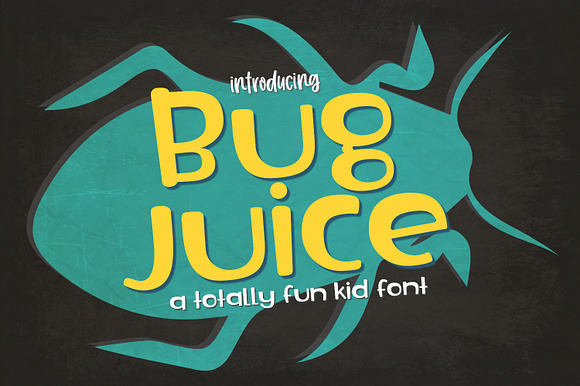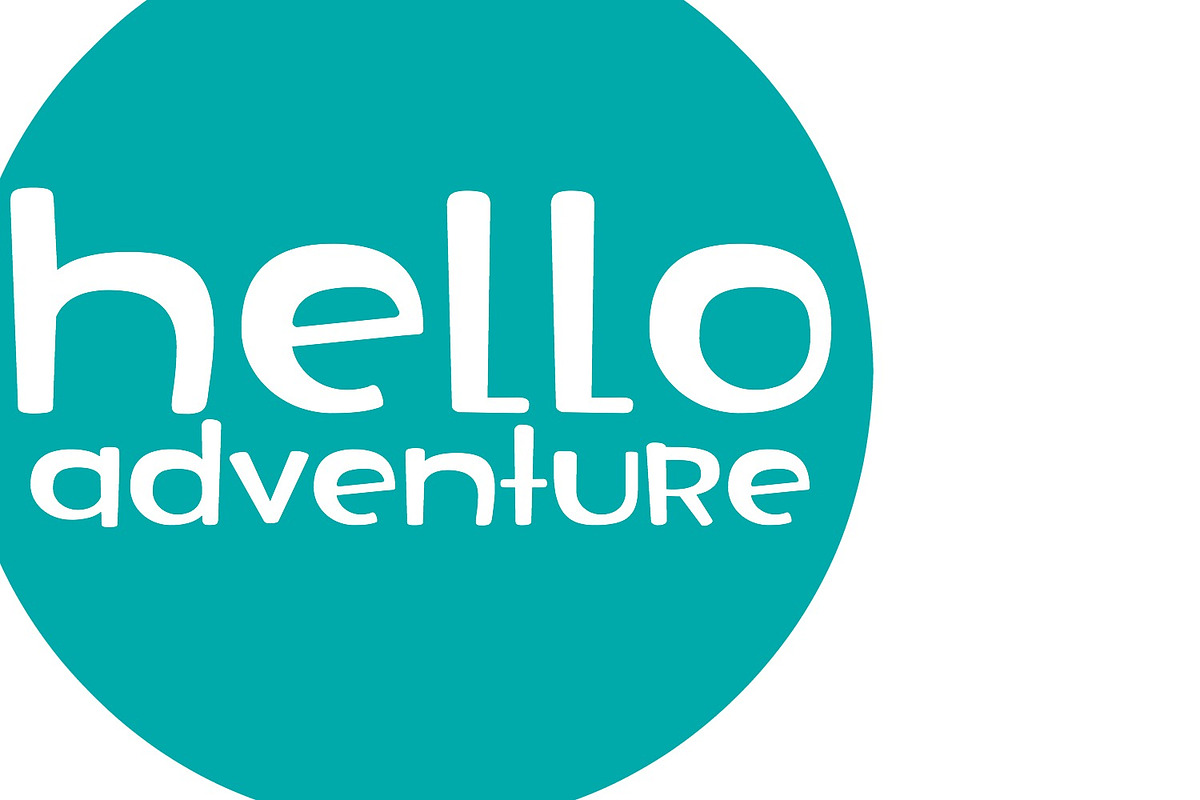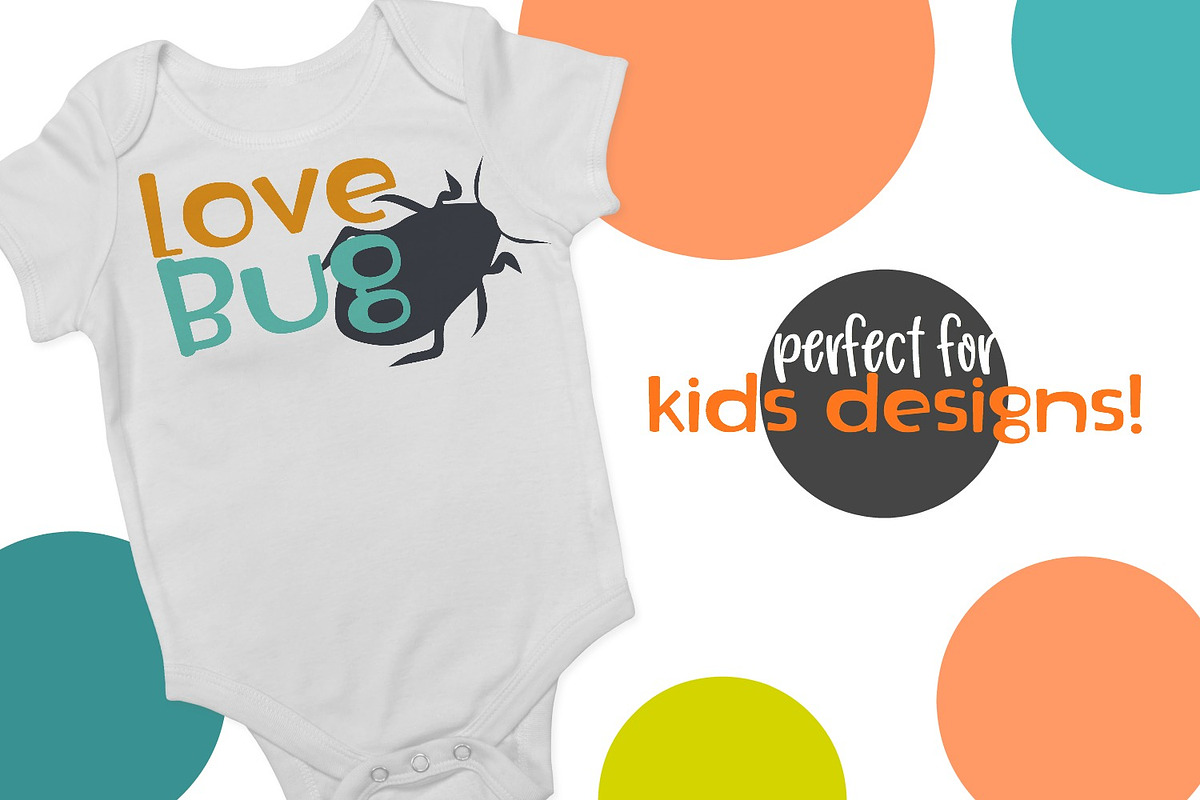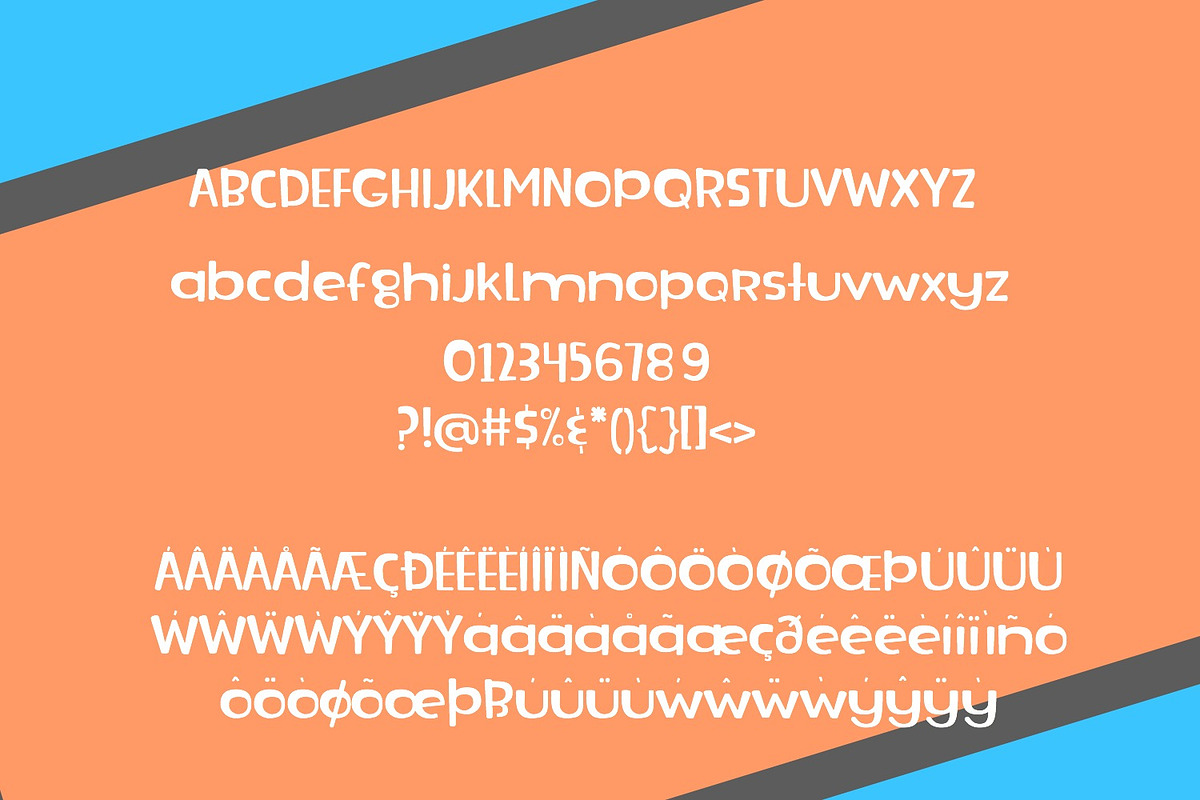
New! Bug Juice Font
Bug Juice is a fun childlike font that is perfect for so many design projects! It comes in true type and open type formats and supports Basic Latin and most European languages.
New! Bug Juice Font by Sabrina Schleiger Design fits naturally into Branding, posters, packaging, typography.